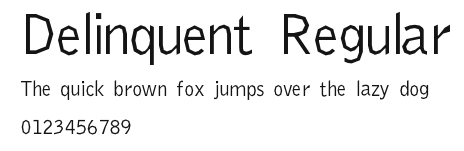
Delinquent Regular Preview
• Font Name: Delinquent Regular
• Font ID: Delinquent Regular
• Full Font Name: Delinquent Regular
• Designer: K.Hachmang
About Delinquent Regular.ttf
Delinquent Regular.ttf is a modern, elegant sans-serif font designed for ultimate readability and visual harmony. Perfect for branding, headlines, web design, and print materials.